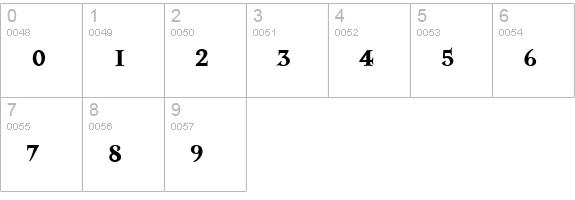
MasonSuper-Bold Font Details
MasonSuper-Bold is a strong, high-contrast variant in the MasonSuper typeface family \xE2\x80\x94 well suited to headlines, attention-grabbing titles, and strong calls-to-action.
Introducing MasonSuper-Bold, a stunningly bold and modern font that exudes confidence and power. With its clean lines and strong presence, this typeface is perfect for making a bold statement in your designs. Whether you're creating eye-catching headlines, captivating logos, or powerful branding materials, MasonSuper-Bold is sure to leave a lasting impression. What sets MasonSuper-Bold apart is not only its striking appearance but also its versatility. This font effortlessly adapts to various styles and themes, making it a go-to choice for designers across different industries. Its bold and commanding letterforms demand attention, allowing your message to stand out from the crowd. But what makes MasonSuper-Bold even more remarkable is that it is completely free. Yes, you read that right! This incredible font is freely available to download at FontsMarket.com. Now, you can experience the power and elegance of MasonSuper-Bold without any barriers. It's a true gem for both professional graphic designers and typography enthusiasts. Crafted with meticulous attention to detail, MasonSuper-Bold offers a wide range of characters, including uppercase and lowercase letters, numerals, punctuation marks, and special symbols. Its well-balanced proportions and consistent spacing ensure legibility and readability in both print and digital mediums. Enhance your designs and make a lasting impact with MasonSuper-Bold. Download this remarkable font for free at FontsMarket.com and unleash your creativity with its bold and captivating aesthetic. Give your projects the edge they deserve and let MasonSuper-Bold be the driving force behind your design success.